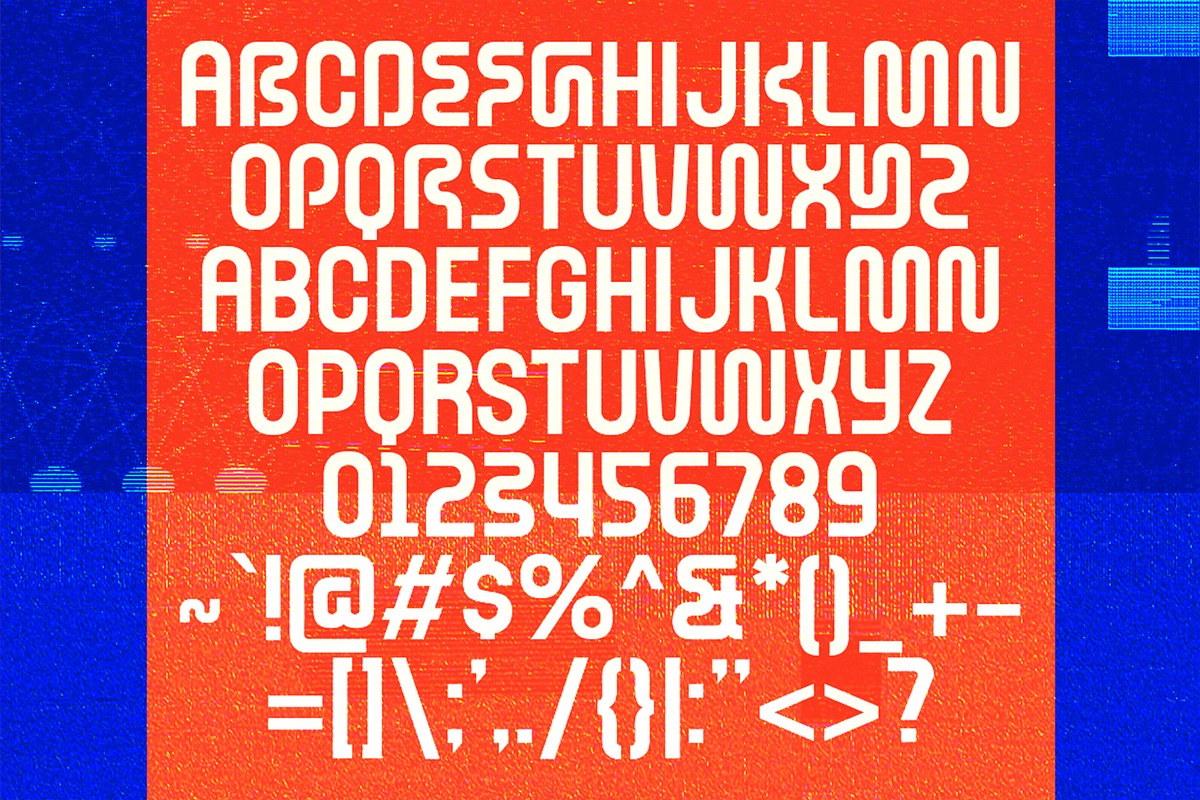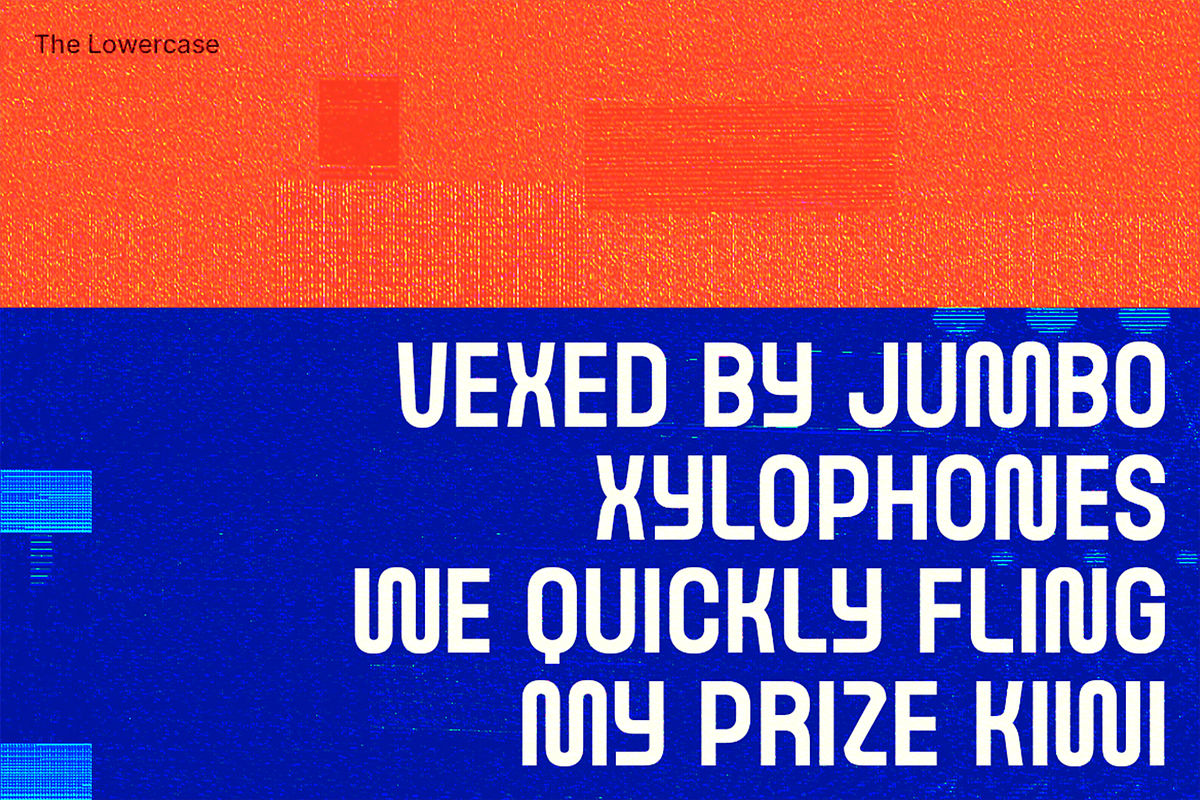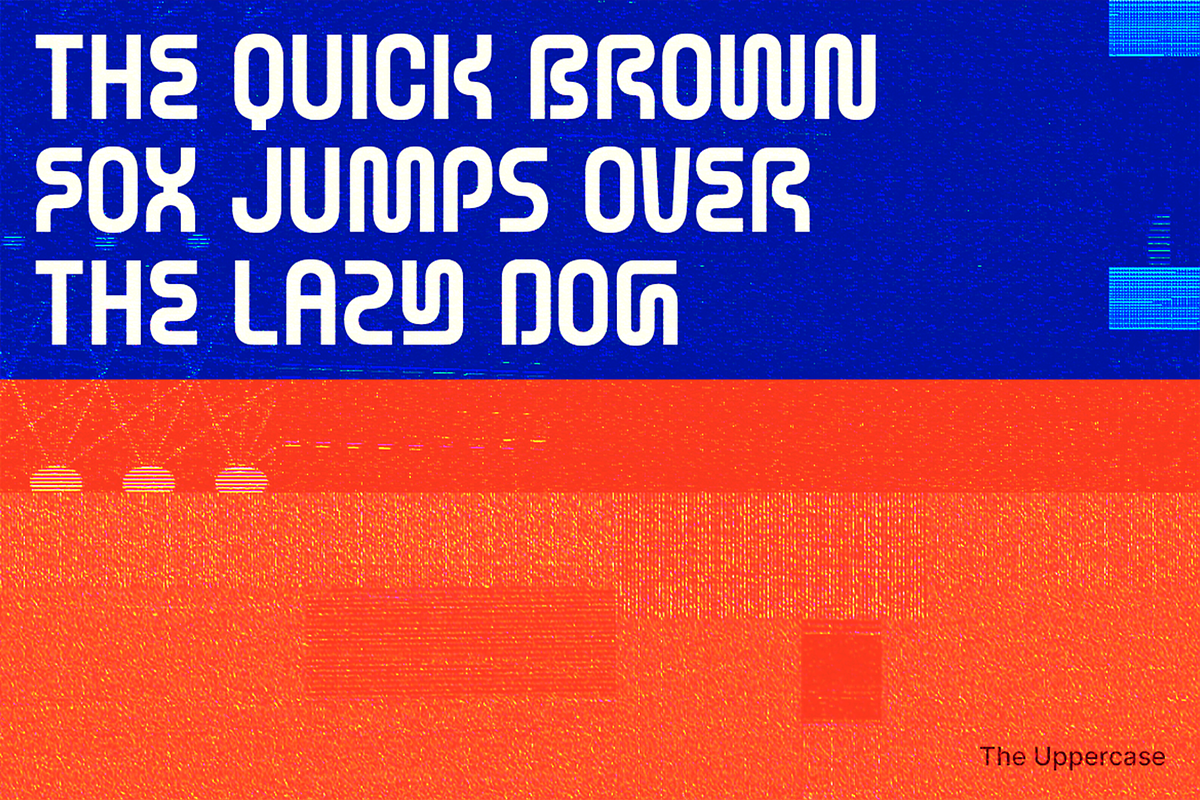
Mensaga - Retro Sci-fi Fonts
Remember the thrill of exploring virtual worlds where neon lights and pixelated graphics reigned supreme? Where the future was a place of bold imagination and boundless possibilities? With Mensaga, you can bring that nostalgic vision into your modern designs.
Inspired by the retro futurism era, Mensaga captures the essence of the golden age of gaming and the cinematic worlds that defined a generation. Think of the iconic visuals that shaped our dreams—the neon-soaked streets of a dystopian future, the sleek curves of flying cars, and the digital landscapes of adventure.
Mensaga merges this retro sci-fi aesthetic with a contemporary edge, giving your projects a typeface that’s both familiar and forward-thinking. Whether you’re designing for print, digital, or beyond, Mensaga is your passport to a future that never was, but always will be.